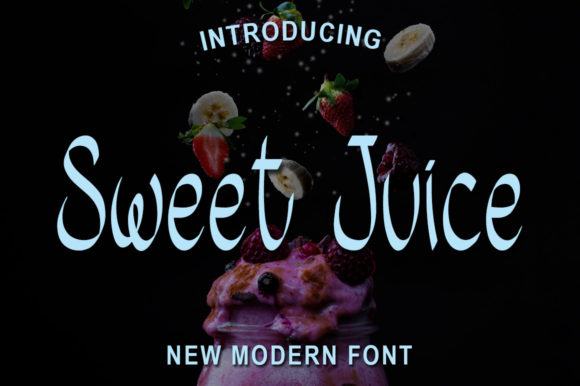
Introducing Sweet Juice: The Exquisite Script Font That Will Ignite Your Designs
Step into a world of enchanting script fonts where grace and elegance dance harmoniously. Meet Sweet Juice, a captivating handwritten font that will bring a touch of joy and romance to every design project you embark on.
With its sweet and charming curves, Sweet Juice embodies the essence of femininity and playfulness. This delicate font is a perfect fit for invitations, wedding stationery, and any project that calls for a whimsical and romantic touch.
Dive into a sea of versatility with Sweet Juice, the font that seamlessly adapts to a myriad of design concepts. Whether you're crafting personal branding, website design, or social media graphics, Sweet Juice will add a touch of sophistication and charm that will capture the hearts of your audience.
If you're seeking a font that emanates warmth and happiness, look no further than Sweet Juice. Its flowing lines and playful nature will create designs that evoke a sense of joy and celebration.
Immerse yourself in a world of creativity with Sweet Juice, the font that will ignite your imagination. Let its sweet and charming essence flow through your designs, captivating your audience and leaving an unforgettable mark.